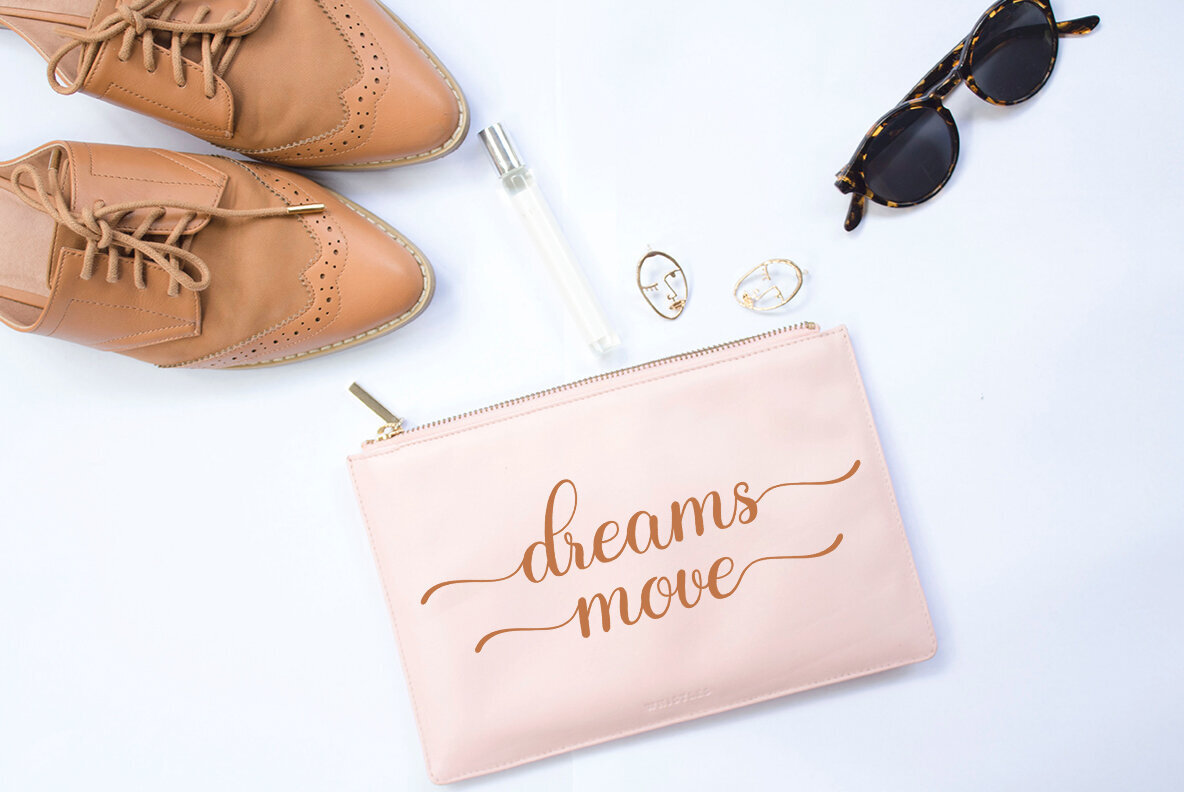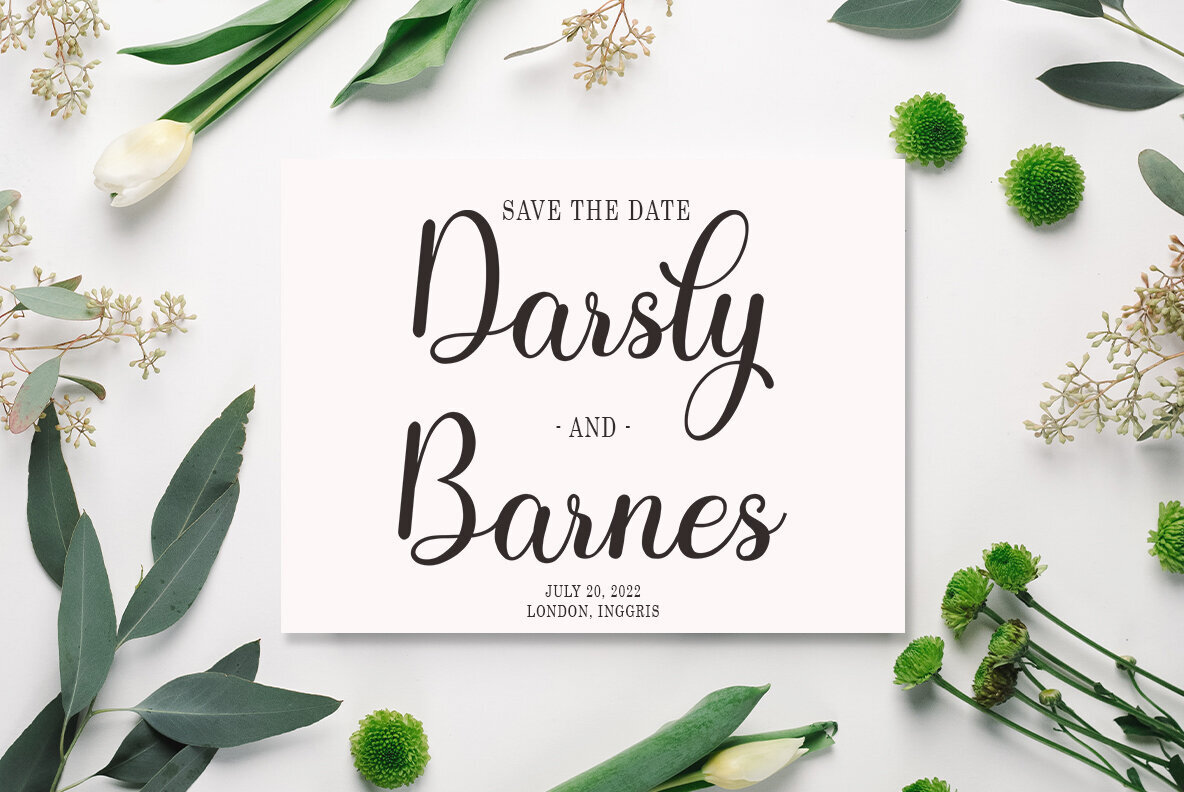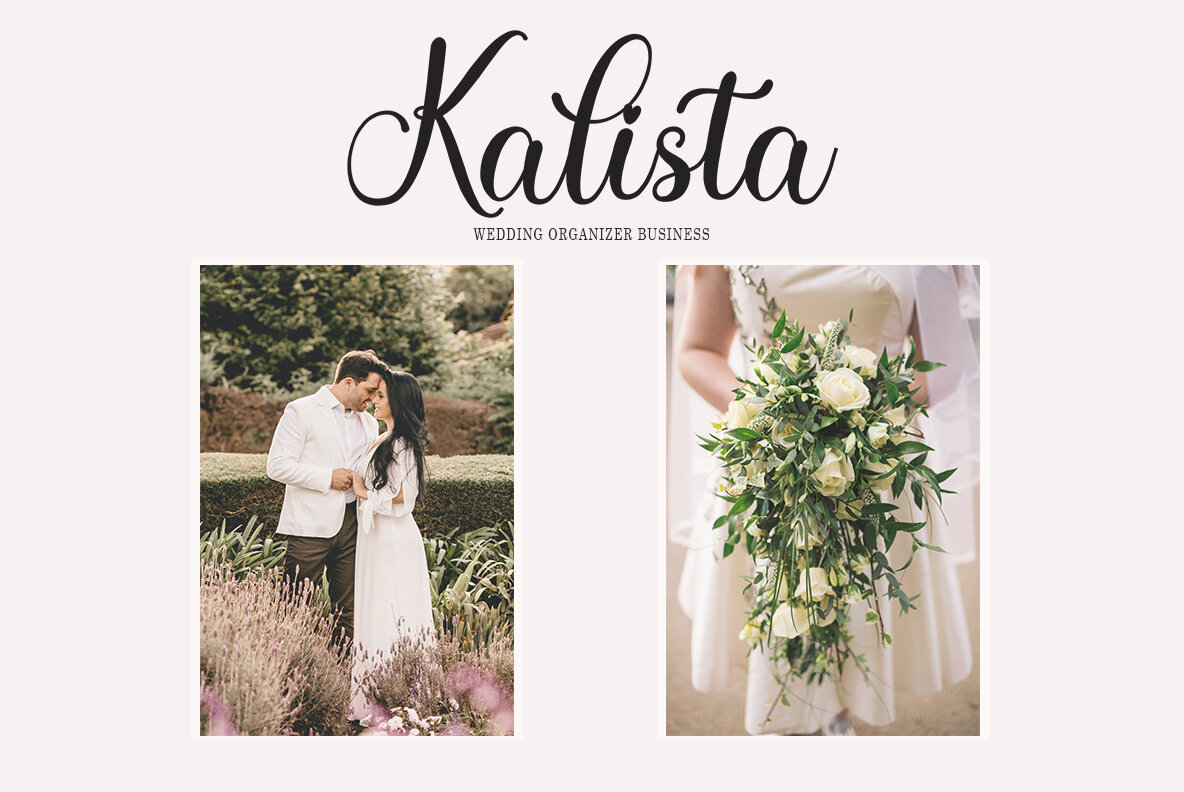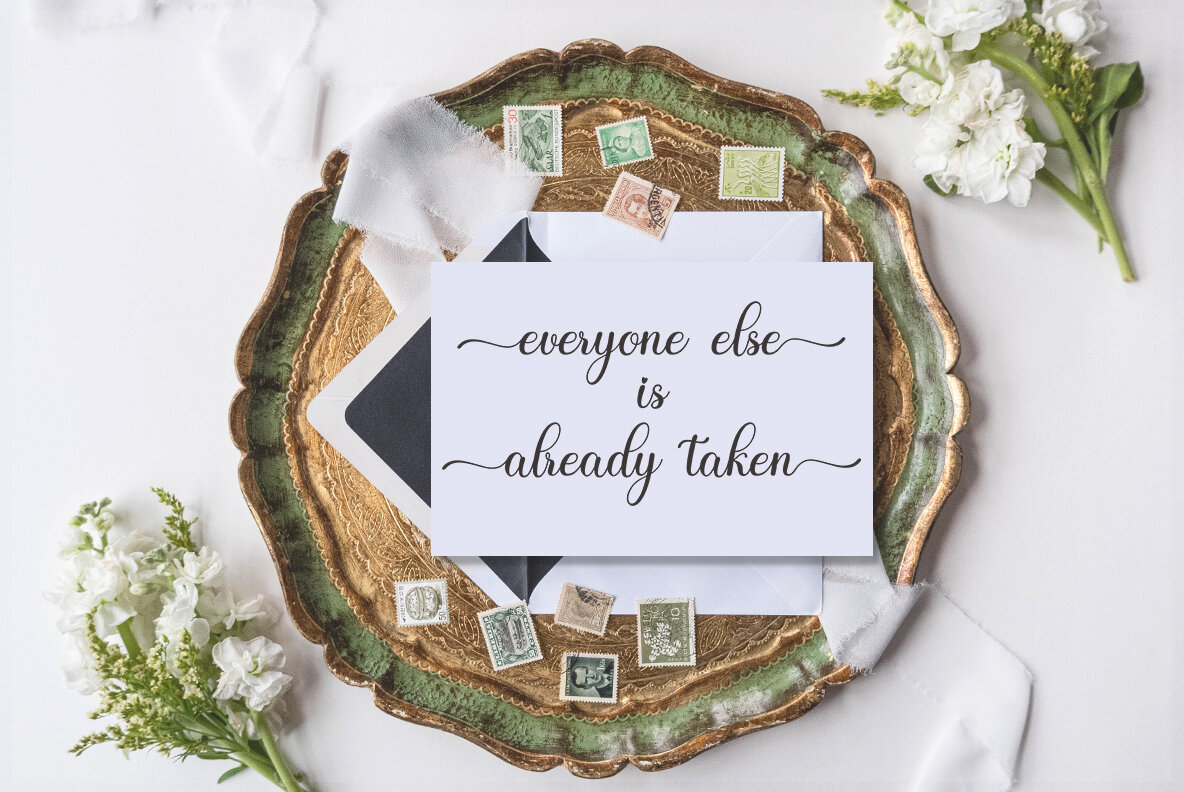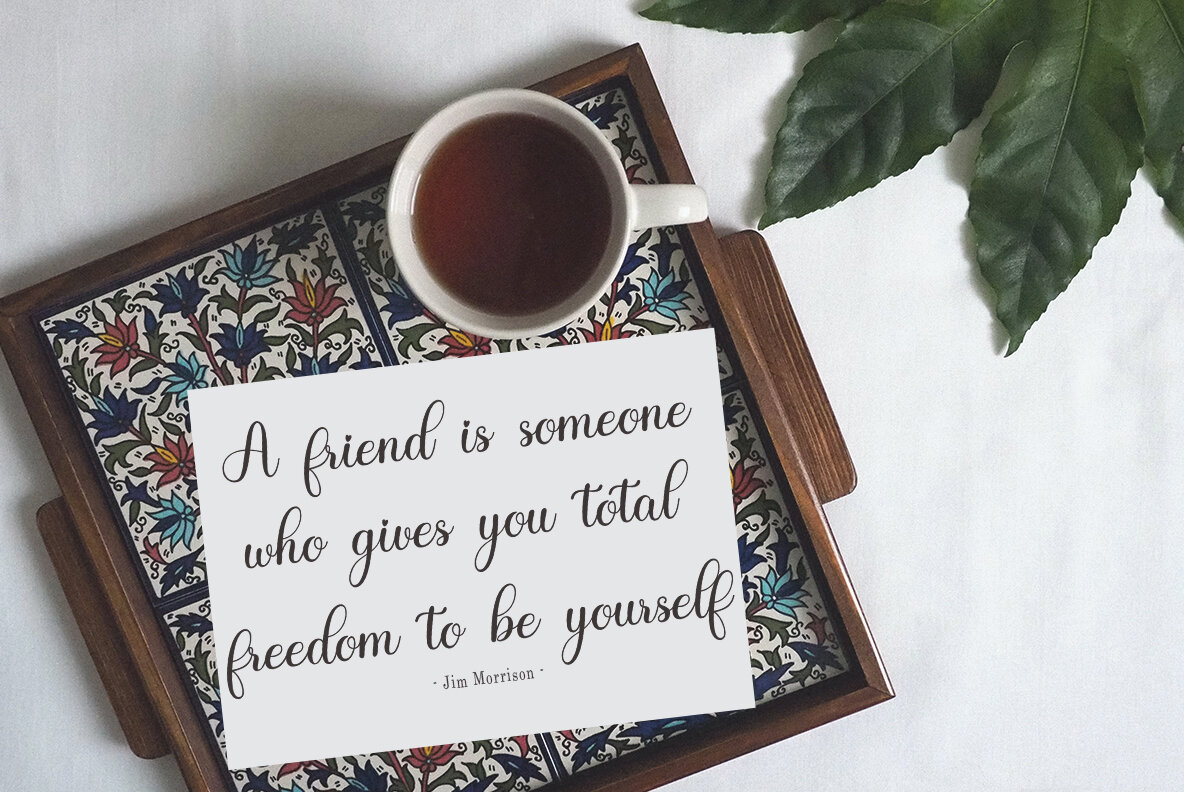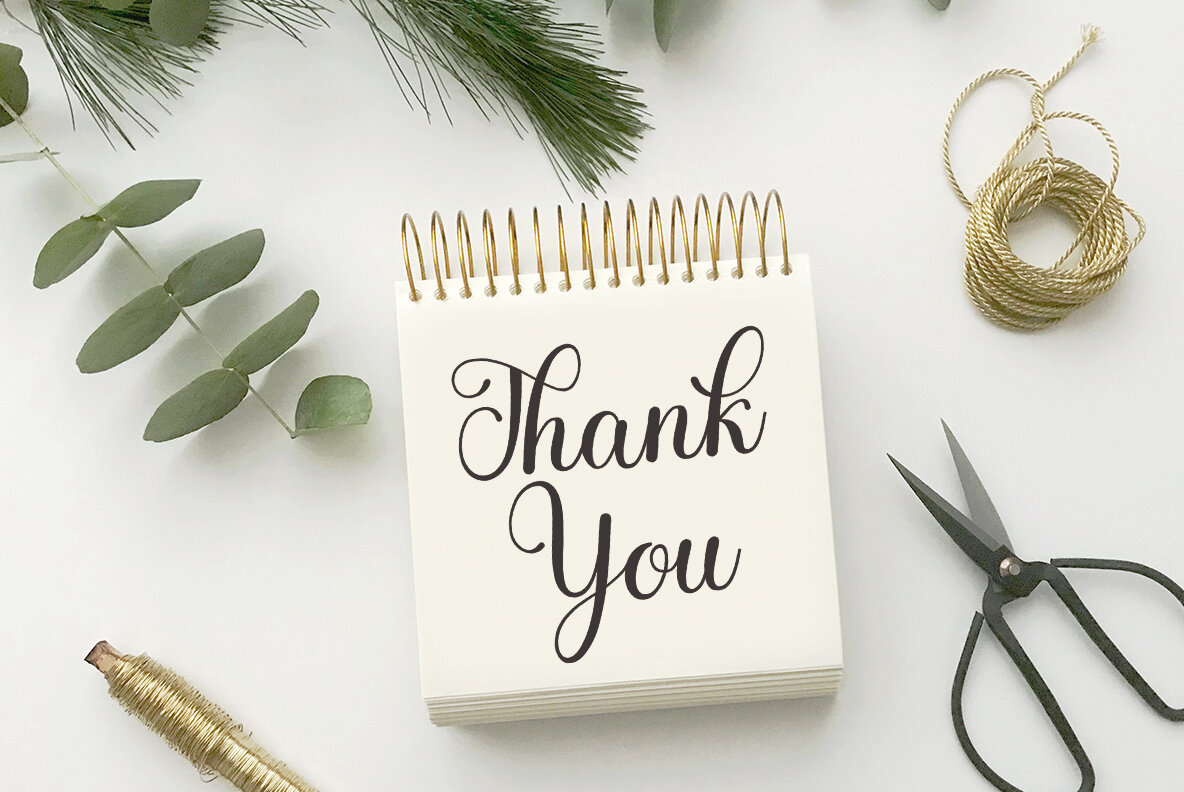
Bailey Font
Bailey
Bailey is a beautifully crafted script font designed by Bosstype Studio. This font exudes charm and elegance, making it ideal for various creative projects that aim to capture attention with a touch of sophistication.Bailey: Charming Script Font by Bosstype Studio